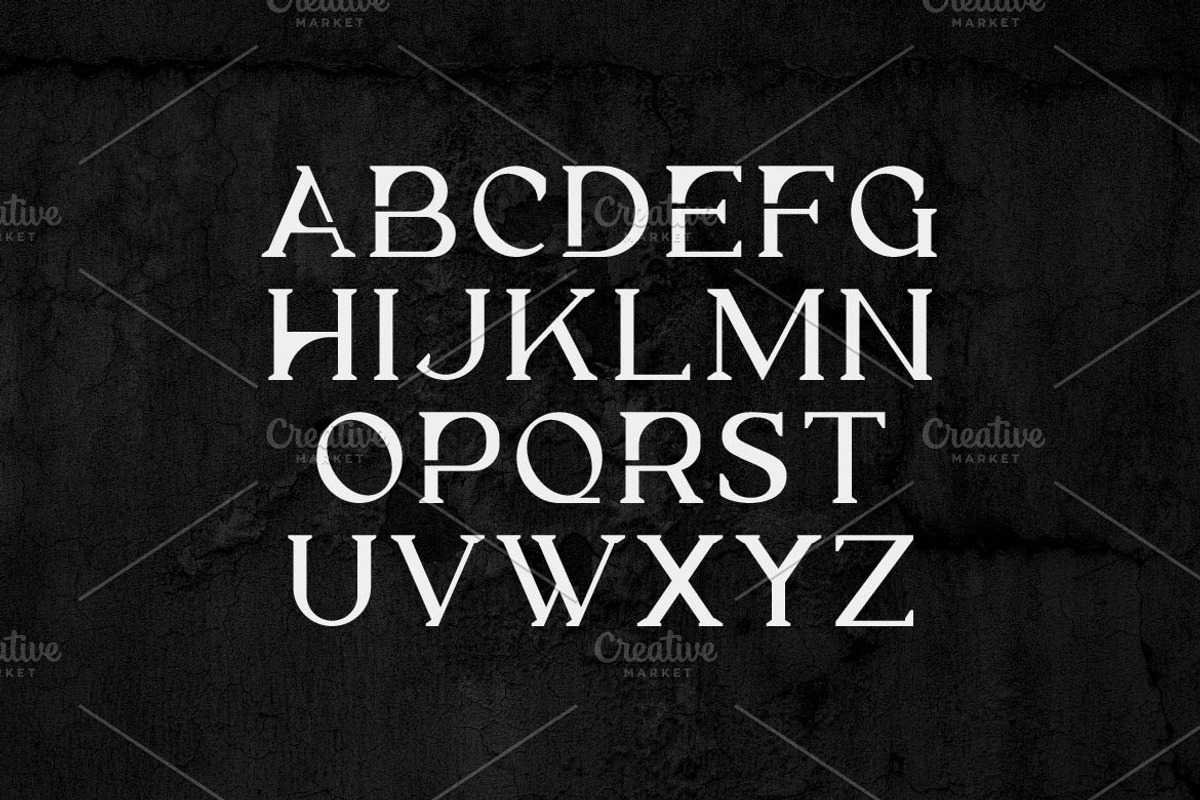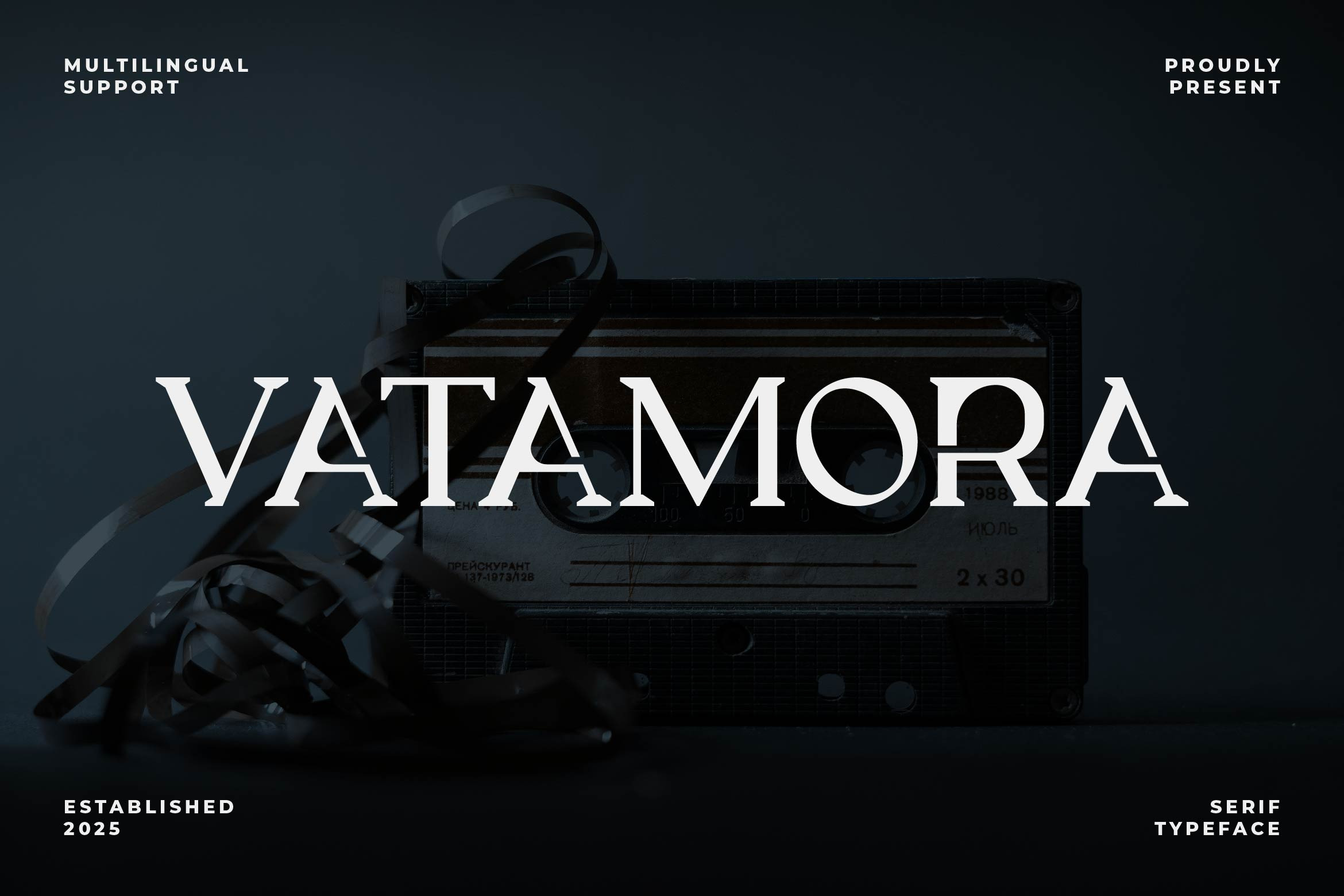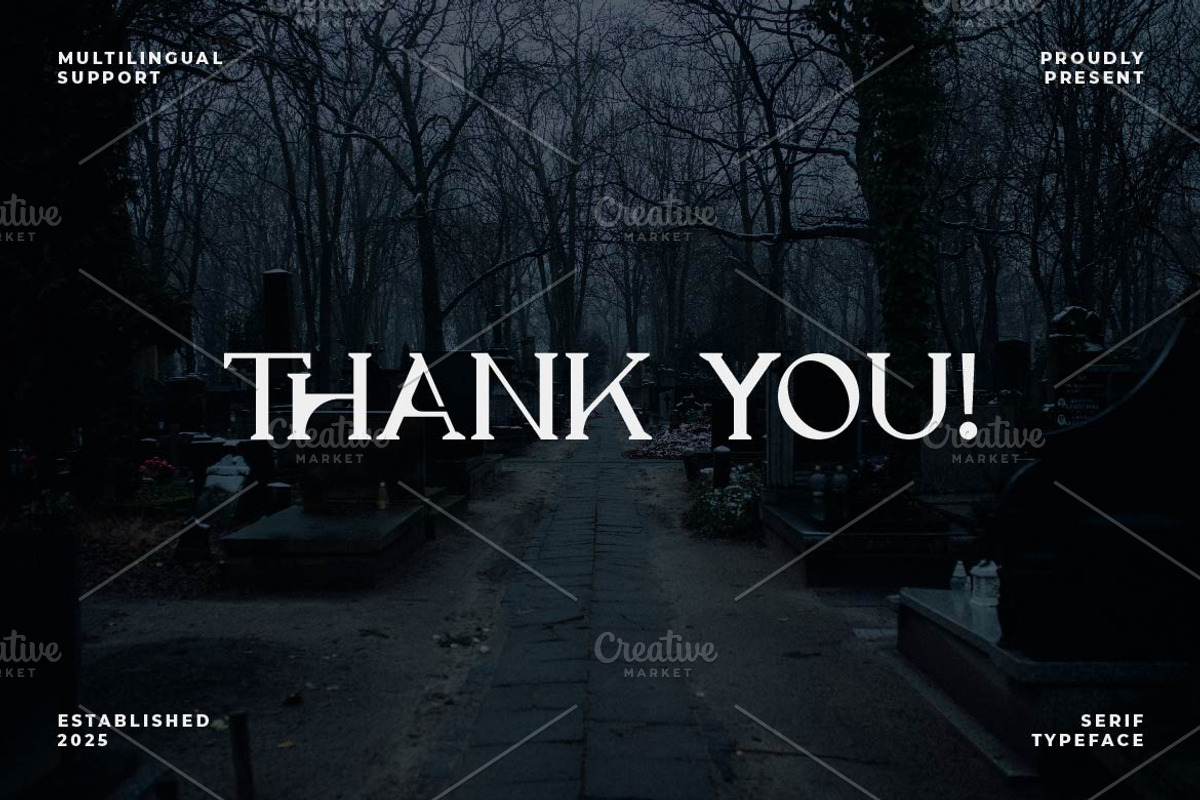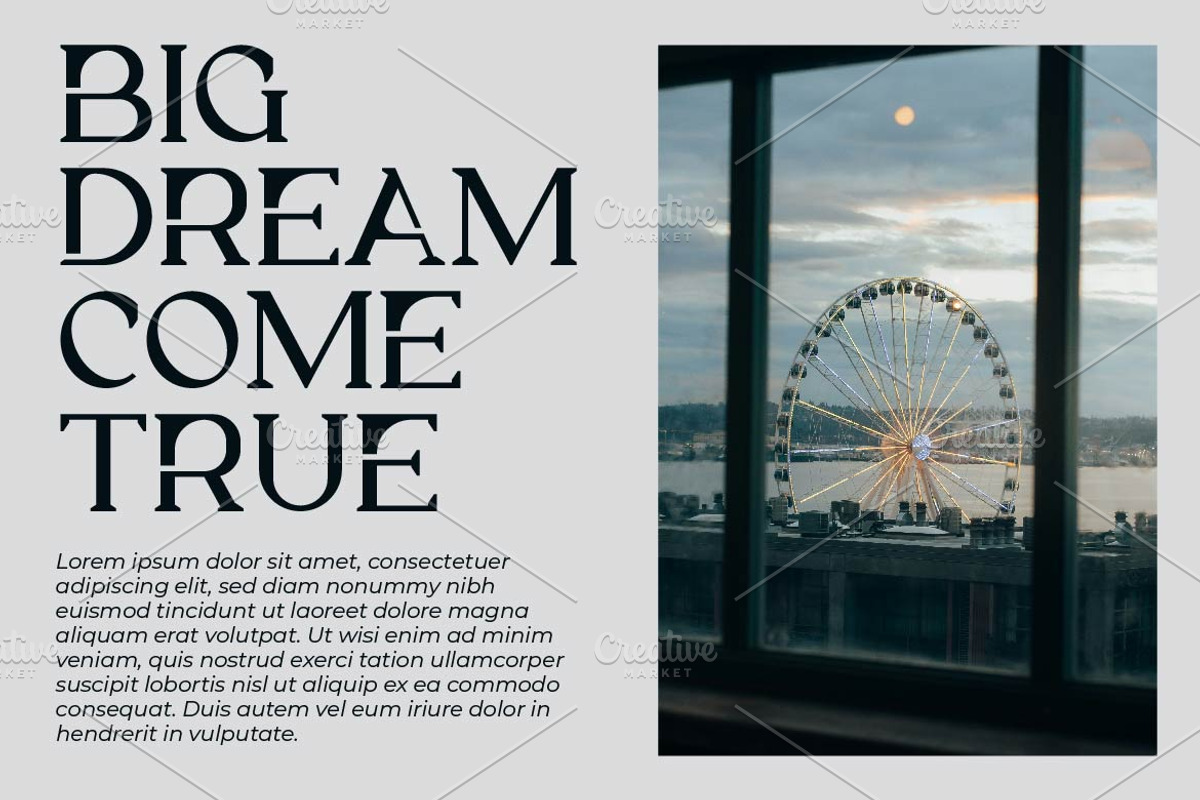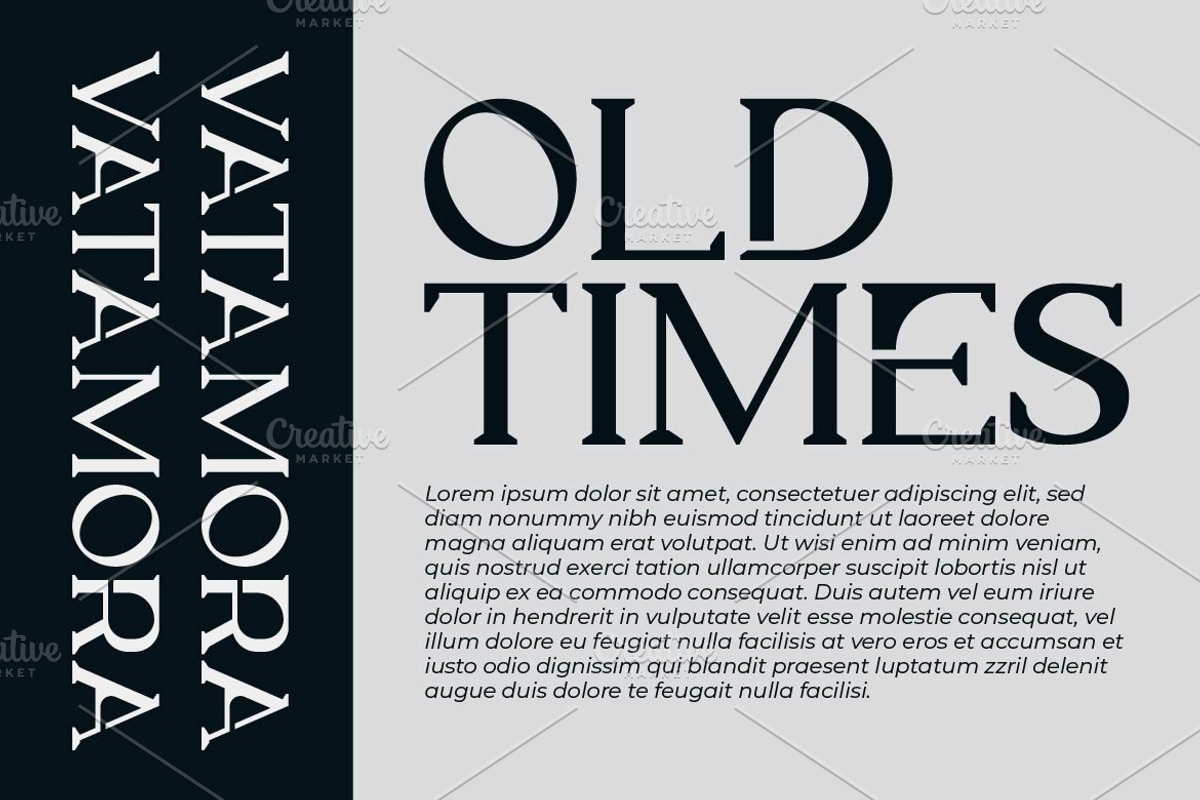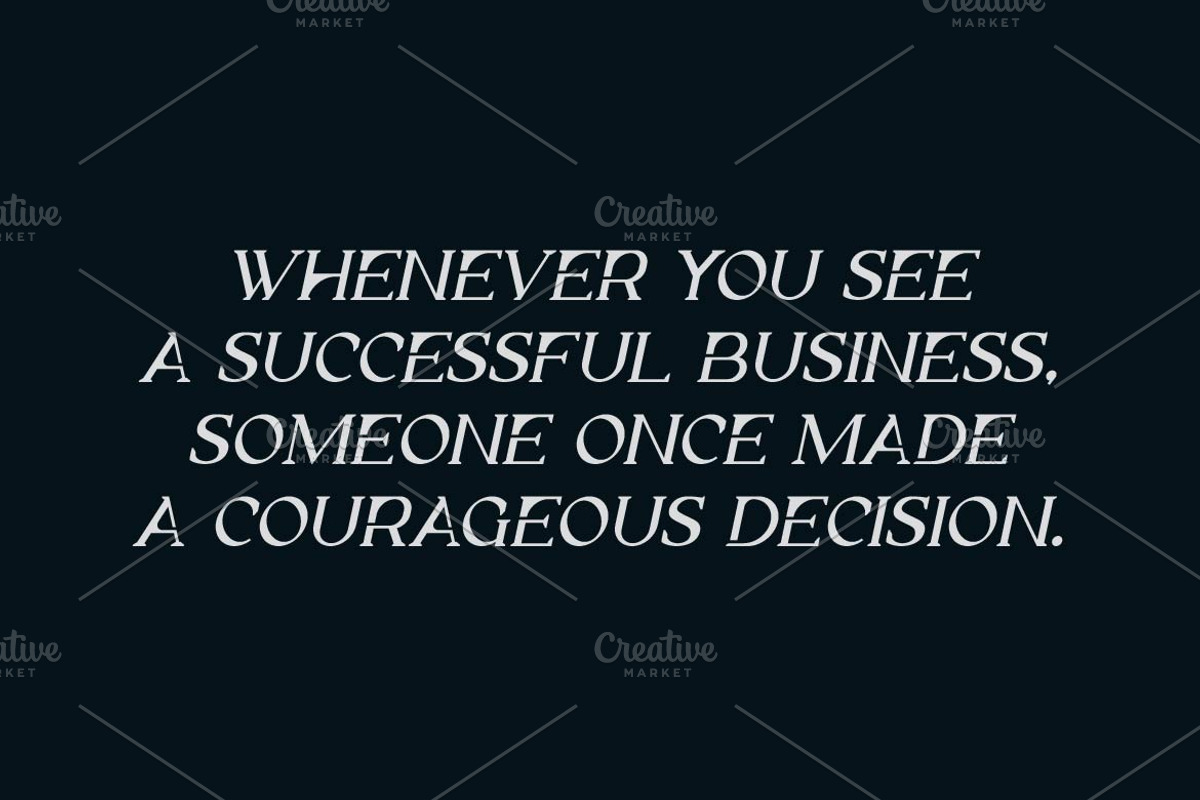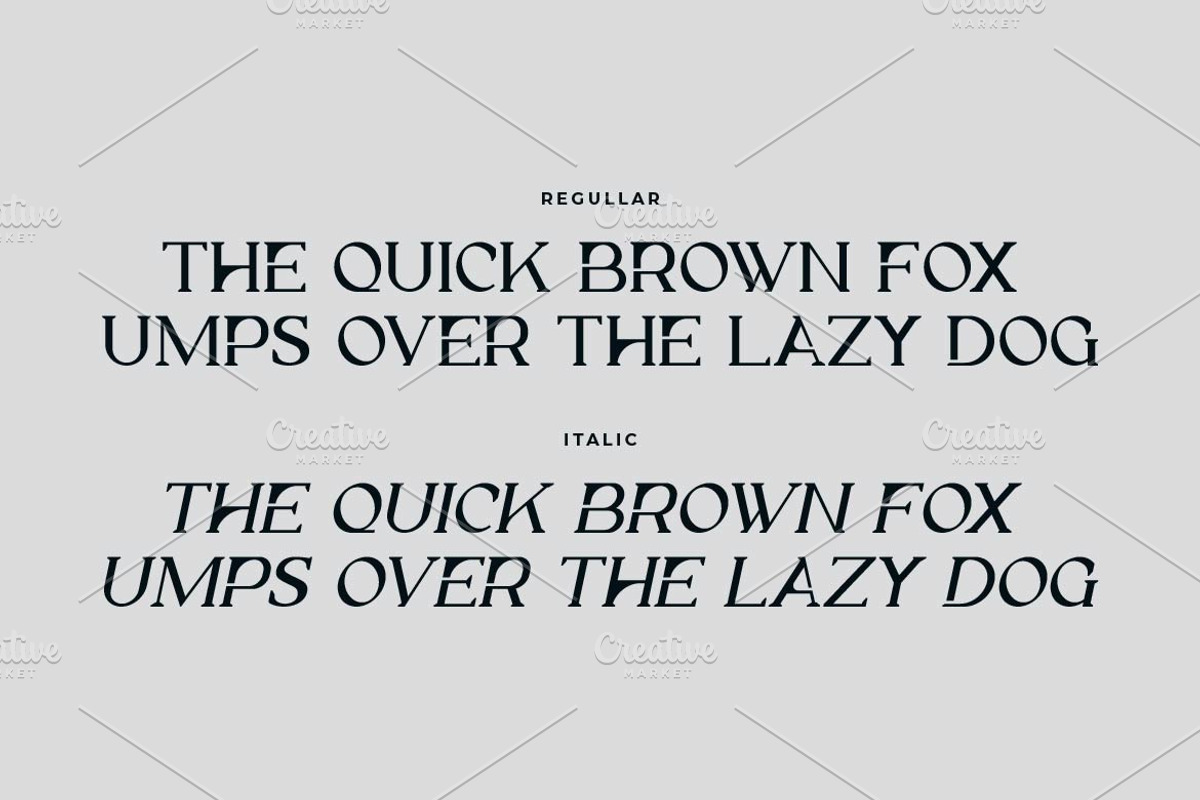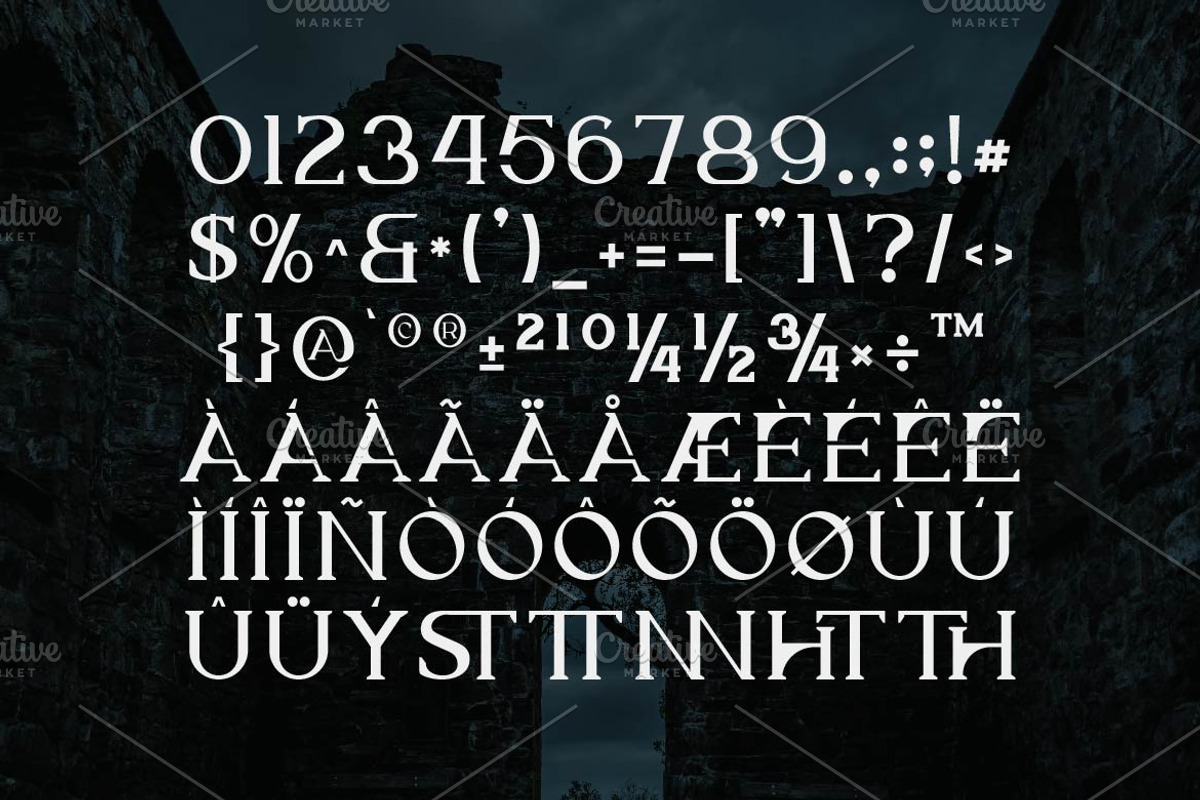
Vatamora Luxury Serif Font
Vatamora is a sophisticated serif font crafted with elegant curves and refined details. Blending classic charm with a modern touch, Vatamora is perfect for luxury branding, editorial design, invitations, and high-end packaging. Featuring multilingual support, ligatures, and alternates, this versatile typeface brings a timeless and graceful aesthetic, making it an excellent choice for projects that require sophistication and professionalism.